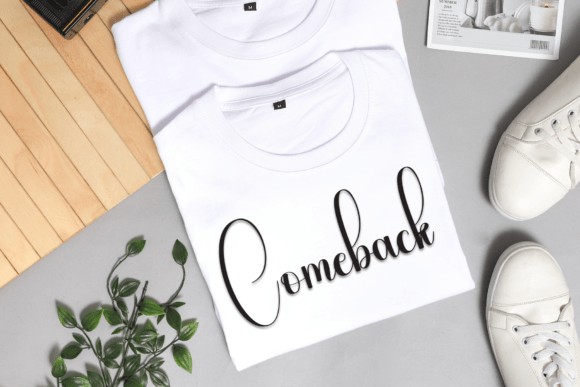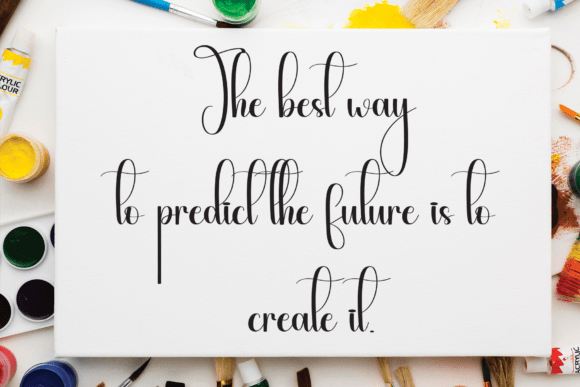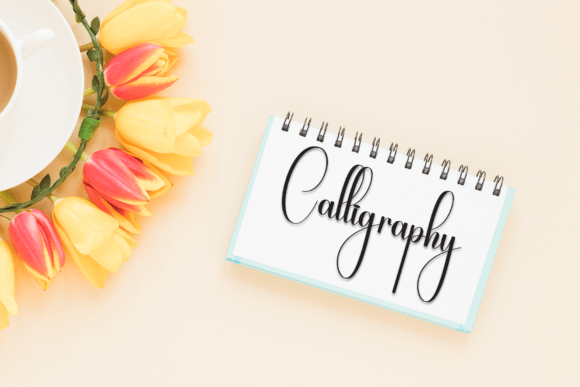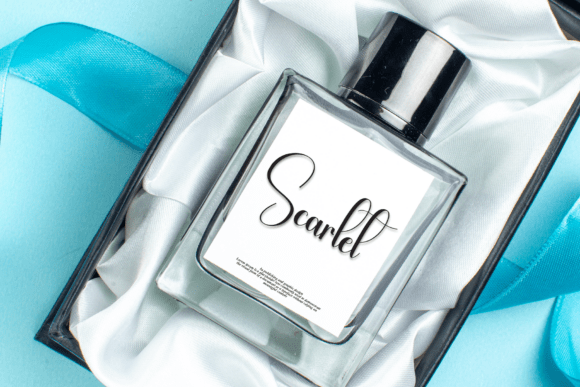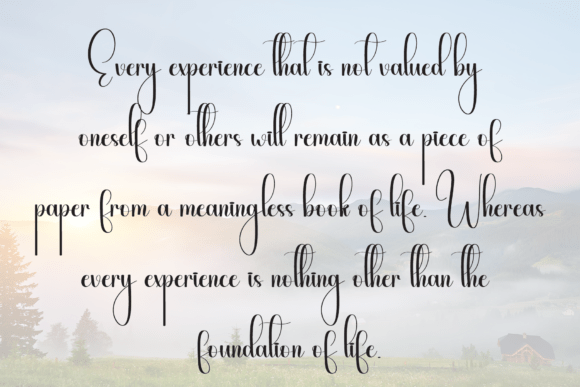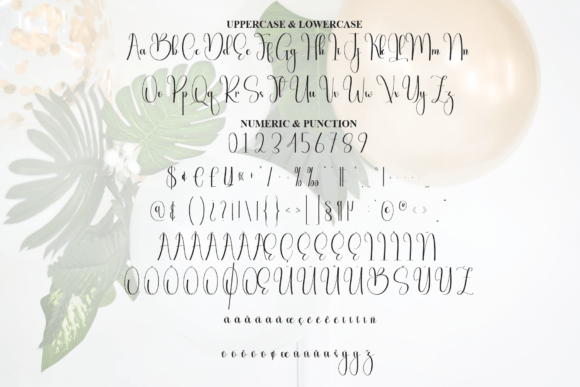
Introducing Birthday Font: The Perfect Blend of Elegance and Playfulness
Are you tired of using the same old fonts for your designs? Look no further! Birthday Font is a stylish handwritten script font that brings a fresh and modern touch to any project. With its fluid strokes and charming curves, this typeface is perfect for designers and crafters looking to add a personal feel to their work.
The Characteristics of Birthday Font
Birthday Font is a unique and versatile typeface that blends modern elegance with a playful touch. Its fluid strokes and charming curves give it a distinctive look that’s both sophisticated and fun. Here are some of the key characteristics that make Birthday Font stand out:
- Fluid Strokes: Birthday Font features fluid strokes that give it a smooth and elegant look. The strokes are carefully crafted to create a sense of movement and flow, making it perfect for designs that require a touch of sophistication.
- Charming Curves: The curves in Birthday Font are charming and whimsical, adding a playful touch to any design. The curves are carefully balanced to create a sense of harmony and balance, making it perfect for designs that require a touch of elegance.
- Modern Elegance: Birthday Font has a modern and elegant look that’s perfect for designs that require a touch of sophistication. The font is carefully crafted to create a sense of luxury and refinement, making it perfect for high-end designs.
- Playful Touch: Despite its elegant look, Birthday Font also has a playful touch that’s perfect for designs that require a bit of whimsy. The font is carefully crafted to create a sense of fun and playfulness, making it perfect for designs that require a touch of personality.
Uses of Birthday Font
Birthday Font is a versatile typeface that can be used for a wide range of design projects. Here are some of the most popular uses of Birthday Font:
- Logos: Birthday Font is perfect for creating logos that require a touch of elegance and sophistication. The font is carefully crafted to create a sense of luxury and refinement, making it perfect for high-end brands.
- Packaging: Birthday Font is also perfect for packaging designs that require a touch of whimsy and playfulness. The font is carefully crafted to create a sense of fun and personality, making it perfect for brands that want to stand out.
- Invitations: Birthday Font is also perfect for creating invitations that require a touch of elegance and sophistication. The font is carefully crafted to create a sense of luxury and refinement, making it perfect for special occasions.
Why Choose Birthday Font?
There are many reasons why designers and crafters choose Birthday Font for their projects. Here are some of the most popular reasons:
- Unique Look: Birthday Font has a unique look that’s both modern and elegant. The font is carefully crafted to create a sense of sophistication and refinement, making it perfect for high-end designs.
- Versatility: Birthday Font is a versatile typeface that can be used for a wide range of design projects. The font is carefully crafted to create a sense of flexibility and adaptability, making it perfect for designers who need a font that can be used in different contexts.
- Easy to Read: Birthday Font is easy to read and understand, making it perfect for designs that require a clear and concise message. The font is carefully crafted to create a sense of clarity and legibility, making it perfect for designs that require a high level of readability.
Tips for Using Birthday Font
Here are some tips for using Birthday Font in your designs:
- Use it Sparingly: Birthday Font is a elegant and sophisticated typeface that should be used sparingly. Use it for headings and titles to create a sense of luxury and refinement.
- Pair it with Other Fonts: Birthday Font can be paired with other fonts to create a unique and interesting look. Try pairing it with a sans-serif font for a modern and elegant look.
- Experiment with Colors: Birthday Font can be used with a wide range of colors to create a unique and interesting look. Try experimenting with different colors to find the perfect combination for your design.
Birthday Font is a stylish handwritten script font that blends modern elegance with a playful touch. Its fluid strokes and charming curves bring a personal feel to any design, making it perfect for logos, packaging, and invitations. With its versatility, unique look, and ease of use, Birthday Font is a great choice for designers and crafters looking to add a touch of sophistication and whimsy to their projects.